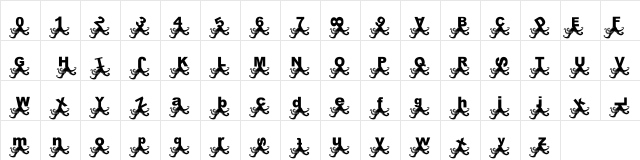
Complete Paul Pulpo Regular glyph index. Displaying only characters natively supported by Paul Pulpo Regular font.
Paul Pulpo is a composed and adaptable typeface that performs quietly and consistently across a wide range of design contexts.